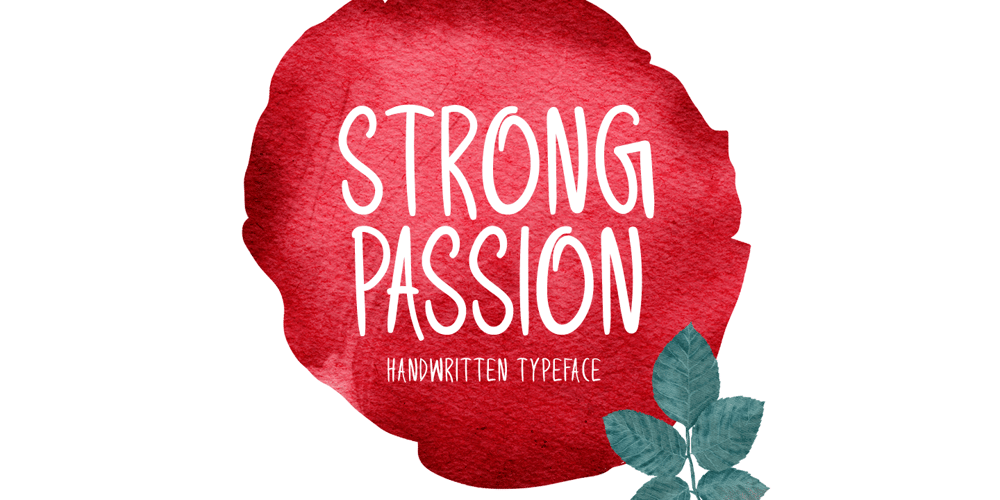
Strong Passion Font Family was designed by Md Shohail Bhuian and published by Seemly Fonts. Strong Passion contains 1 styles and family package options. Strong Passion is a cool, clean, and simple display font. It will look stunning on any food menu, poster, flyer, or print. Use this font for your designs and explore its endless possibilities.